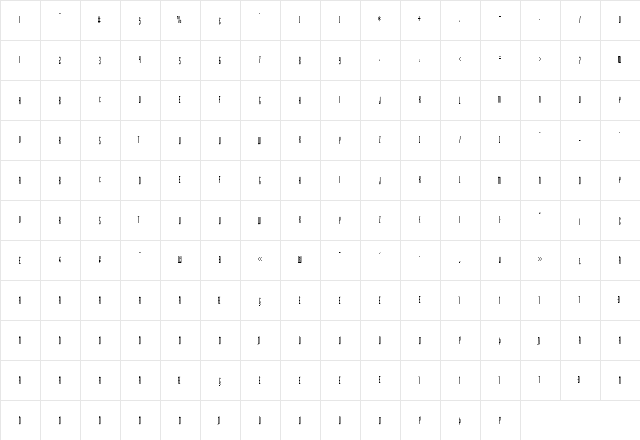
MacroscopicE Regular Font Preview
MacroscopicE Regular
Design Context for MacroscopicE Typeface
MacroscopicE offers clean, dependable letterforms without strong stylistic allegiance, making it a practical choice for designers who need flexibility.